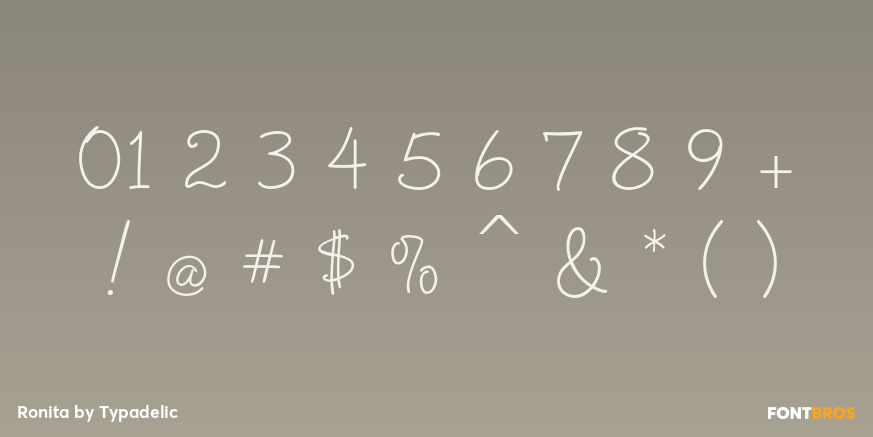
Ronita
Font Family by Typadelic
Even as a child, I was interested in letterforms. I admired my grade 4 teachers' handwriting and so Ronita is based on fuzzy memories of her elegant script.